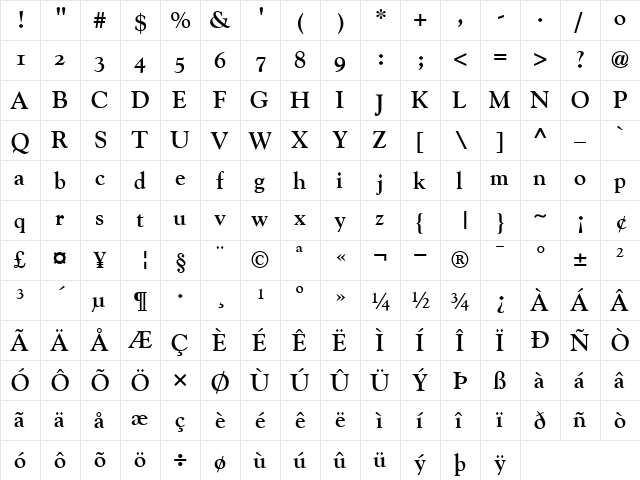
GoudyOldStyleFigures Bold Font Preview
GoudyOldStyleFigures Bold
Design Context for GoudyOldStyleFigures Typeface
GoudyOldStyleFigures brings classic typographic sensibility to the table — its serifs and measured letterforms reflect centuries of print heritage. Its bold stroke weight gives it real presence on the page.
Pro Tip: Use GoudyOldStyleFigures for editorial body copy and considered headline work. Pair with a neutral sans for UI elements or captions to create a classic hierarchy.